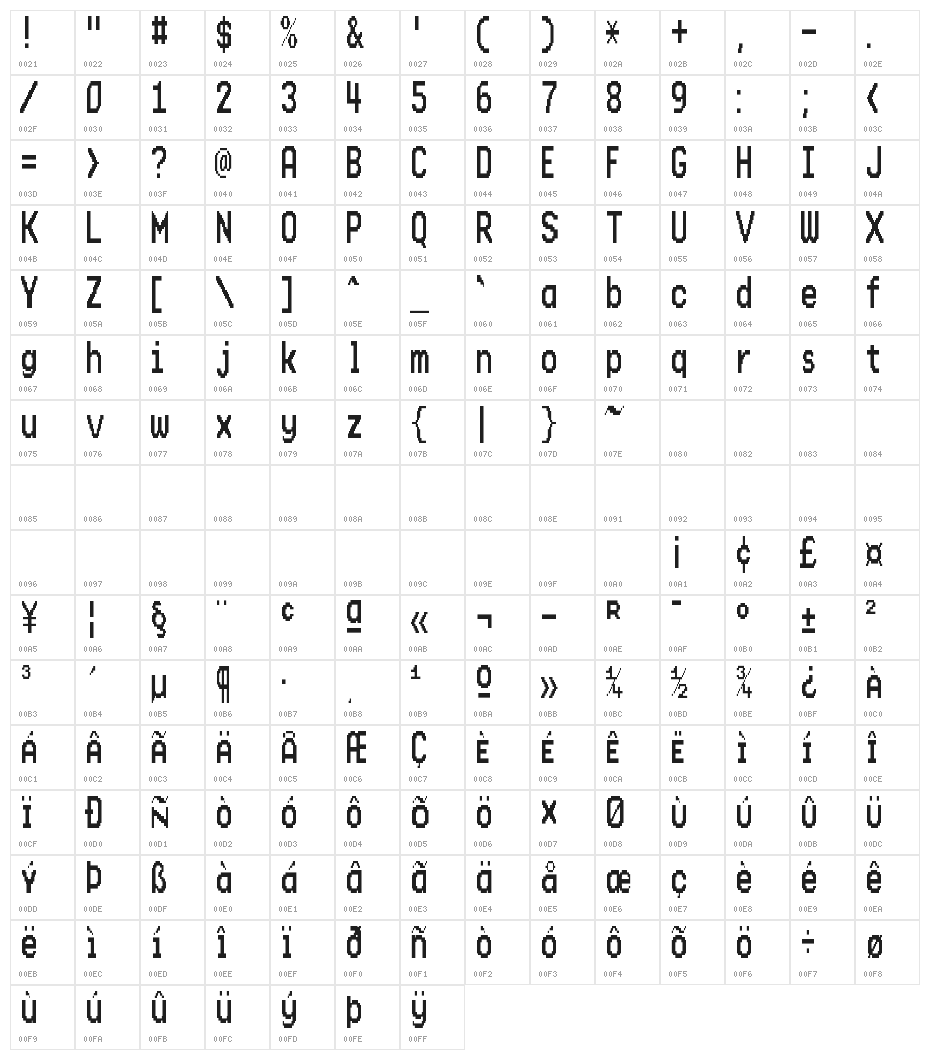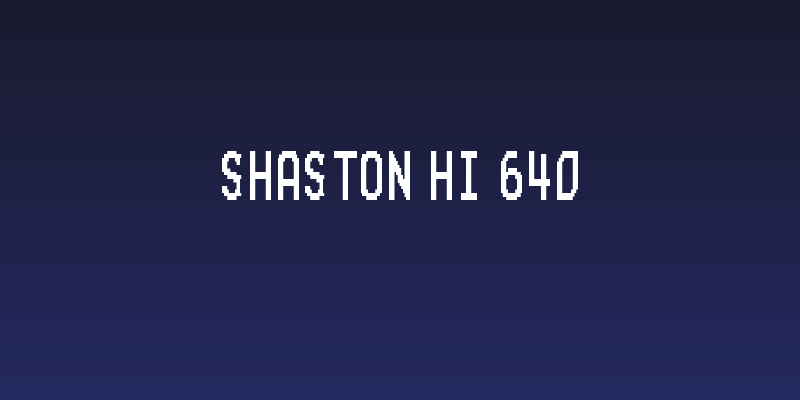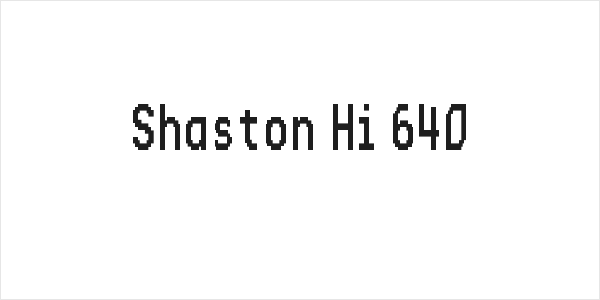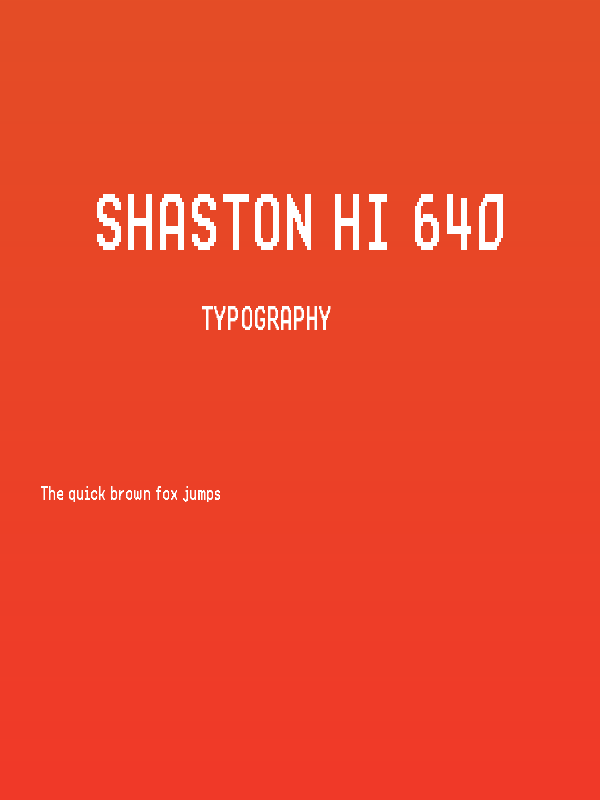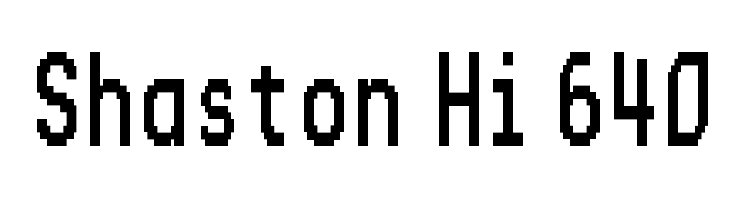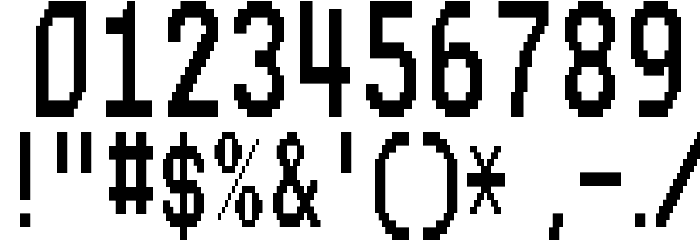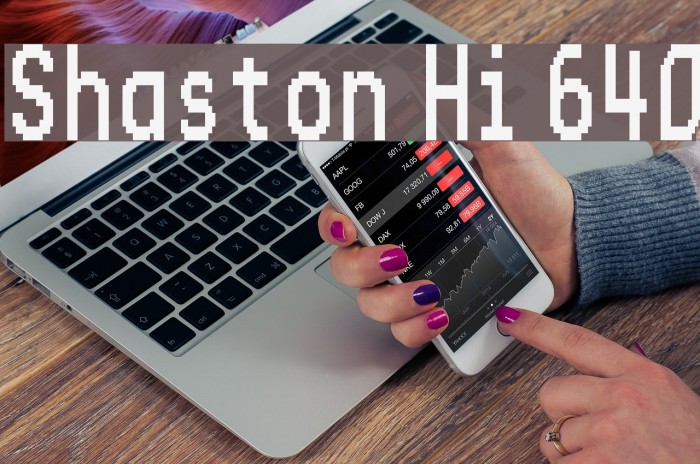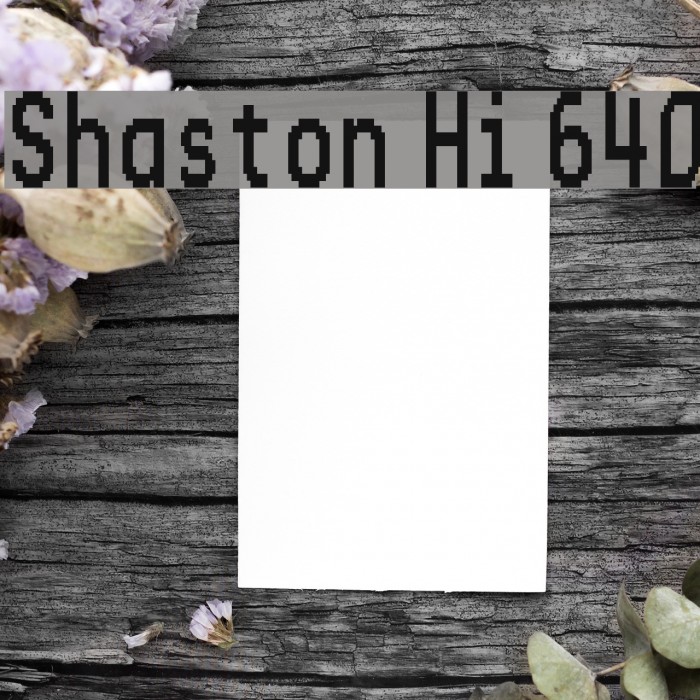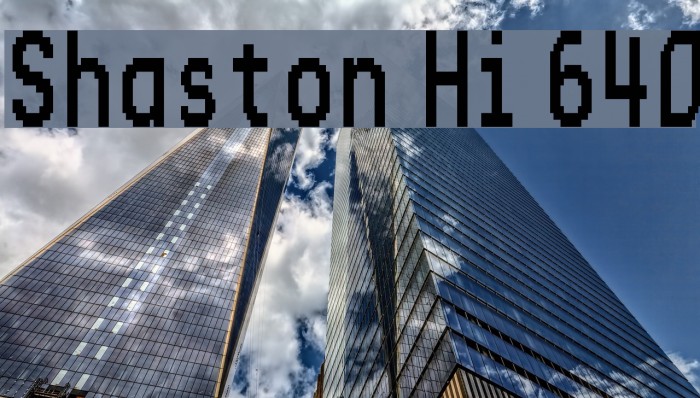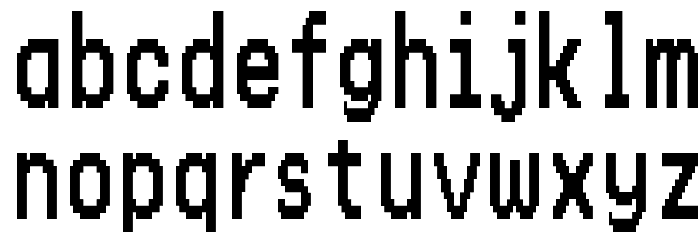
Shaston Hi 640 Font
Shaston Hi 640 Description
This font features a pixelated, retro style reminiscent of early digital displays and video game graphics. Each character is composed of a grid-like pattern, giving it a blocky and geometric appearance. The uppercase and lowercase letters are distinct, with the uppercase being slightly taller and more pronounced. Numbers and special characters maintain the same pixelated style, ensuring consistency across all glyphs. The font's design is straightforward, with no curves or embellishments, emphasizing its digital and vintage aesthetic. This style is ideal for projects that aim to evoke nostalgia or a tech-inspired theme.
| Overall Style | Vintage |
| Proposed Projects | Perfect for retro video games, digital art projects, tech-themed designs, and nostalgic branding. |